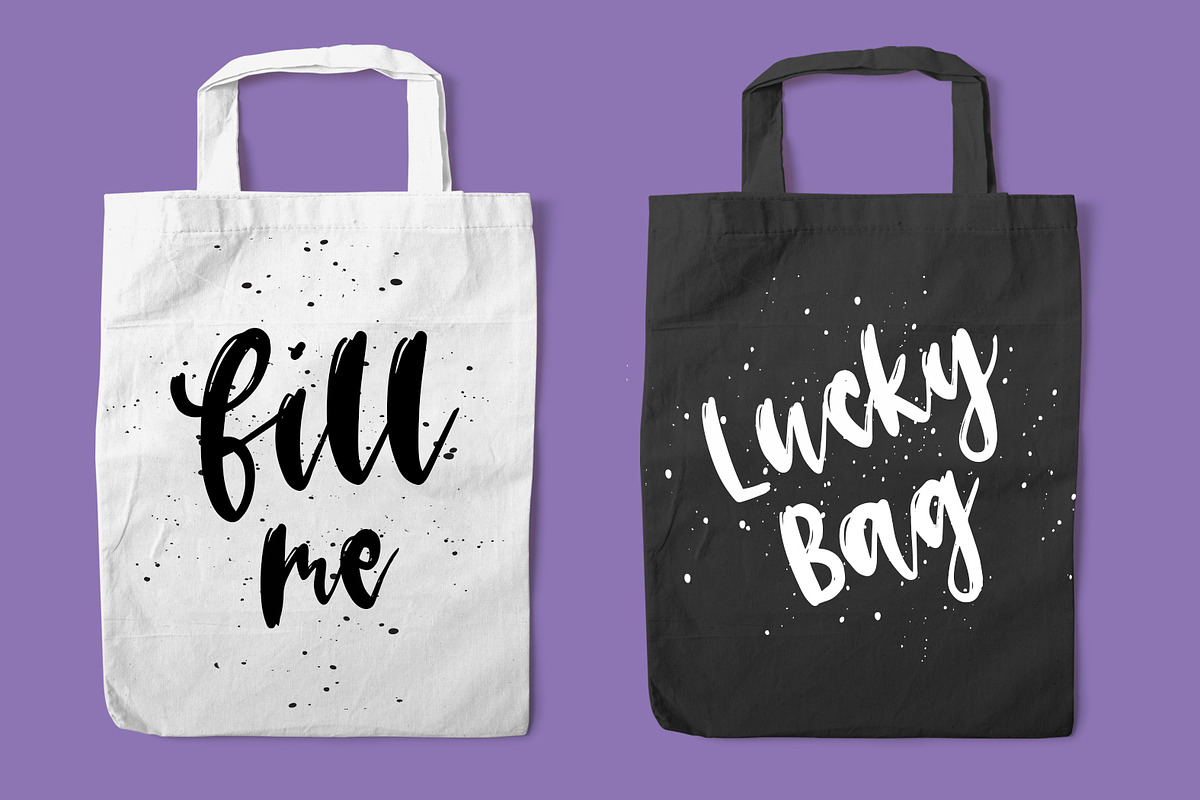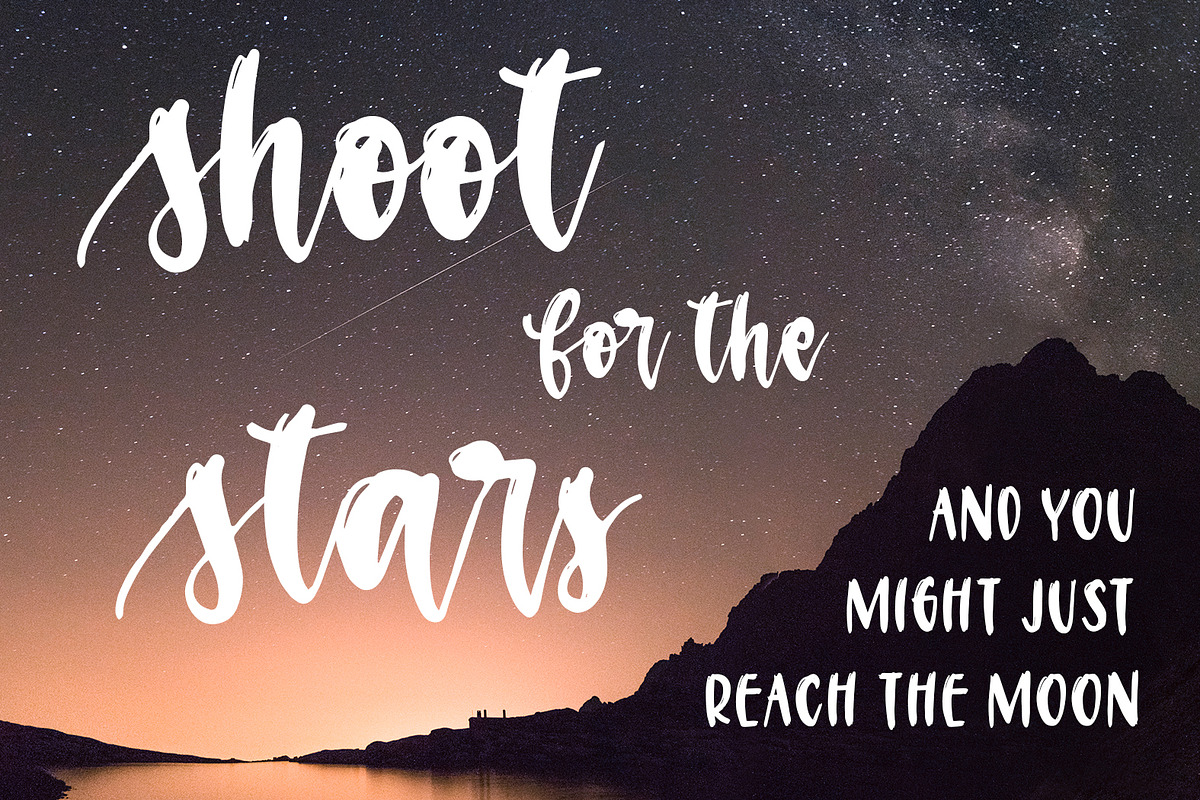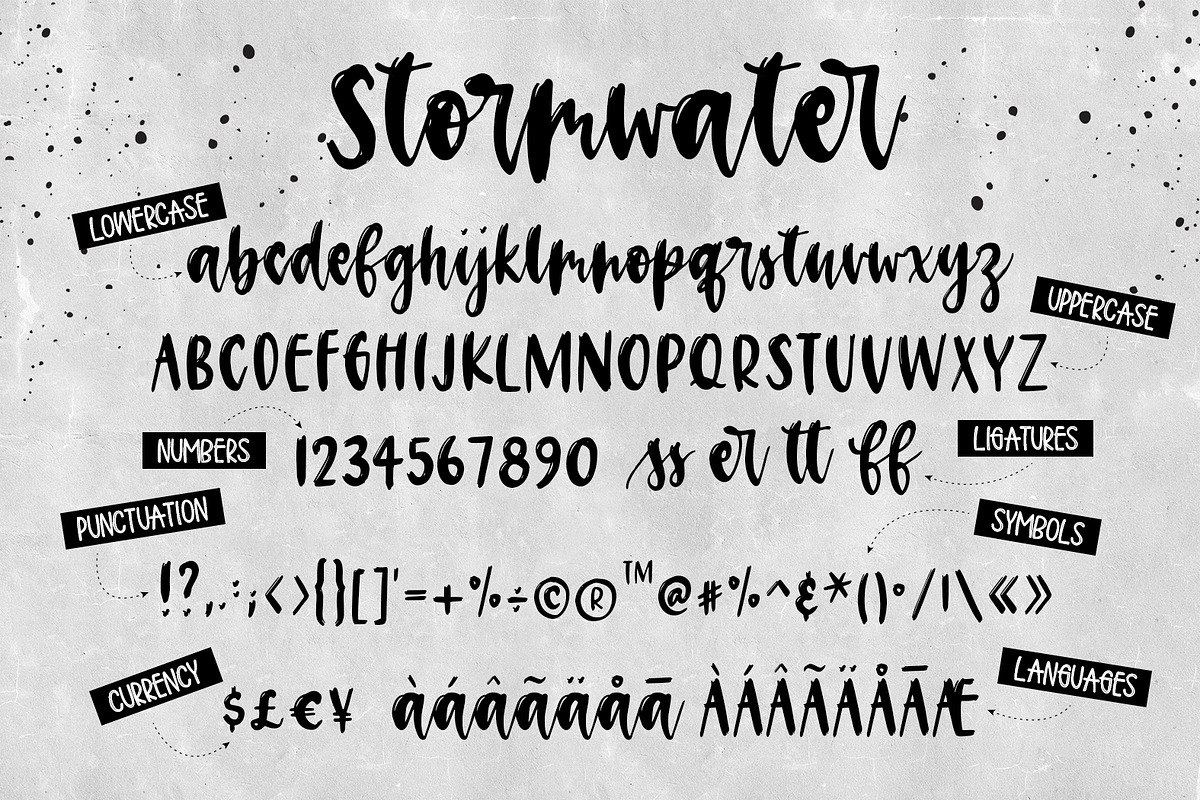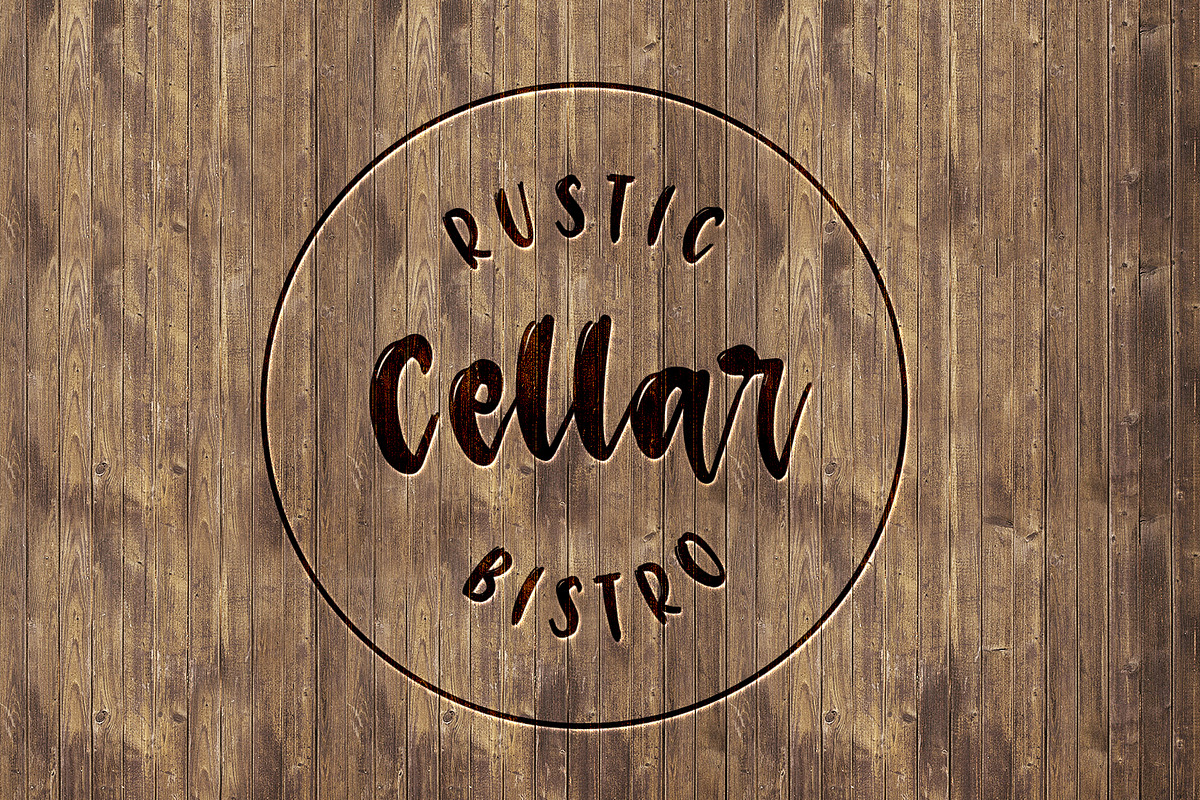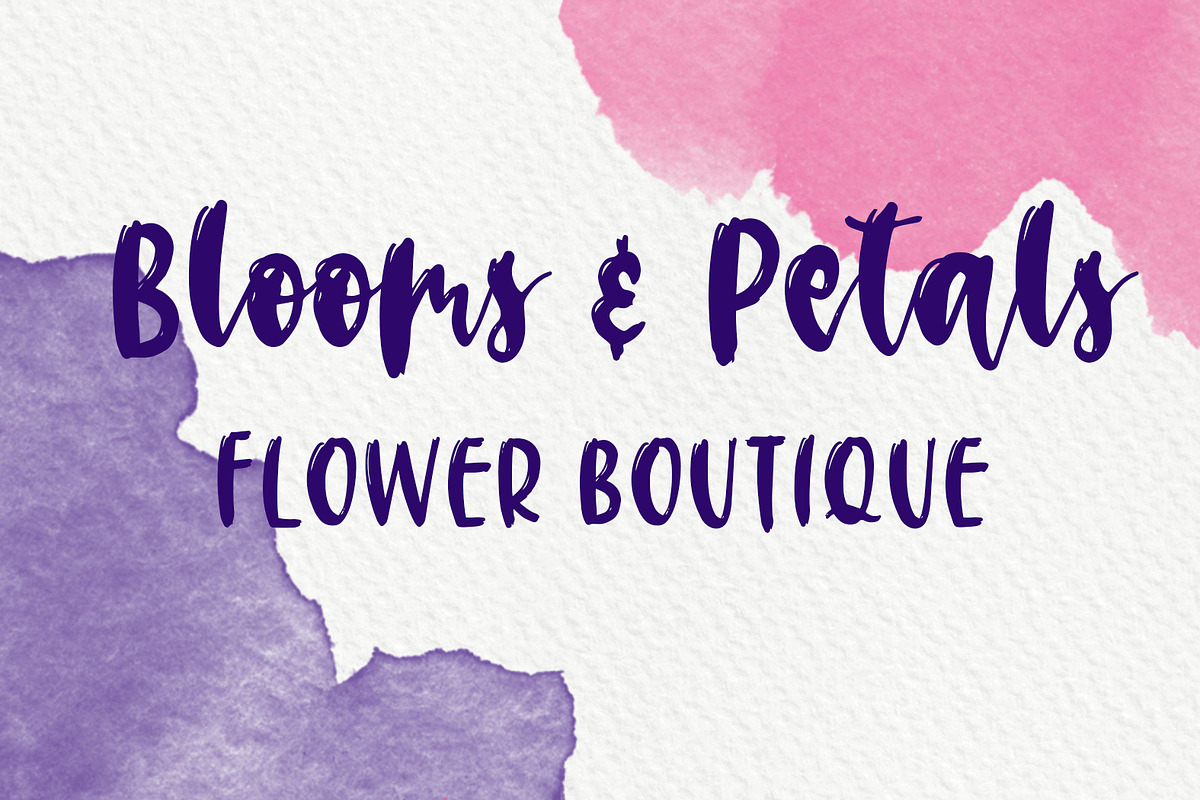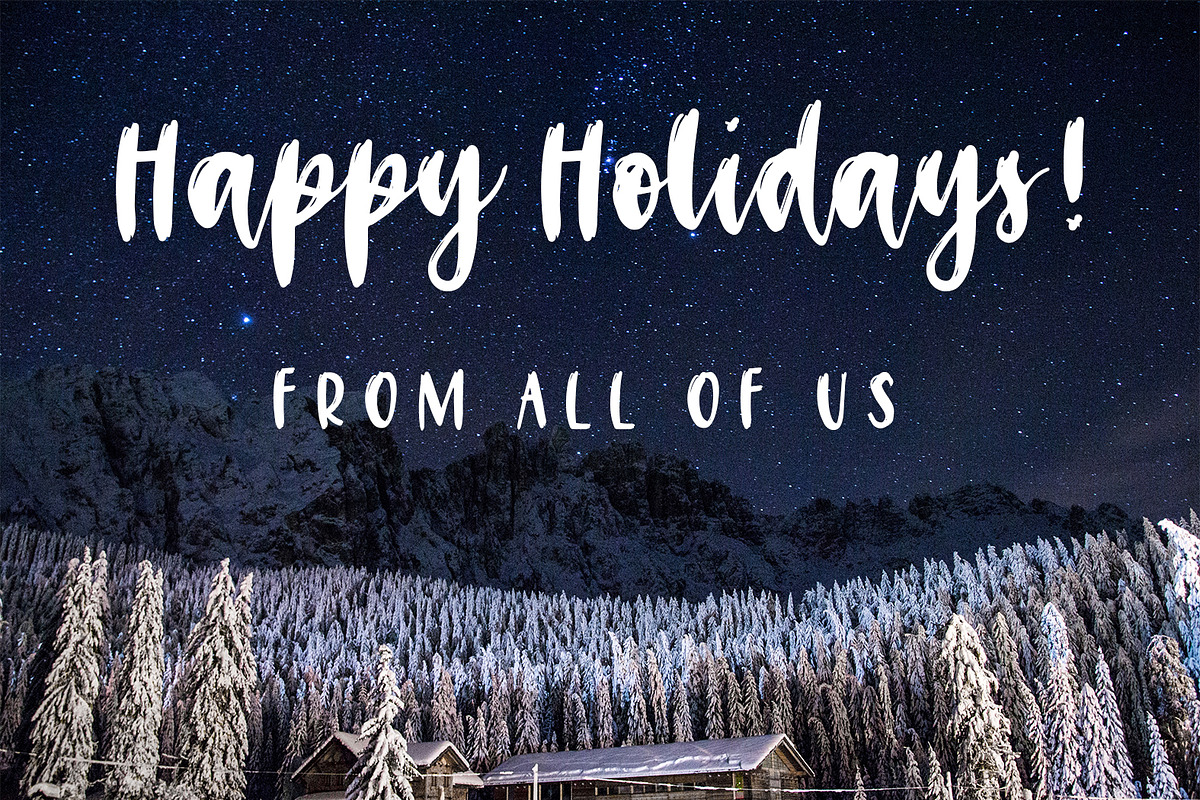
Stormwater Brush Font
Stormwater Brush Font by iPad Lettering is a font selected for branding, posters, packaging, typography.
- Multilingual support is included for all Western European languages.
- The uppercase letters can be used for a completely different style, or mix and match lowercase script + all caps for creative designs.
- Stormwater has a variety of unique, coded features to create compelling, handmade outcomes: 2 stylistic alternates, 2 initial characters and
- Stormwater Script
Stormwater Brush Font by iPad Lettering fits naturally into Branding, posters, packaging, typography.